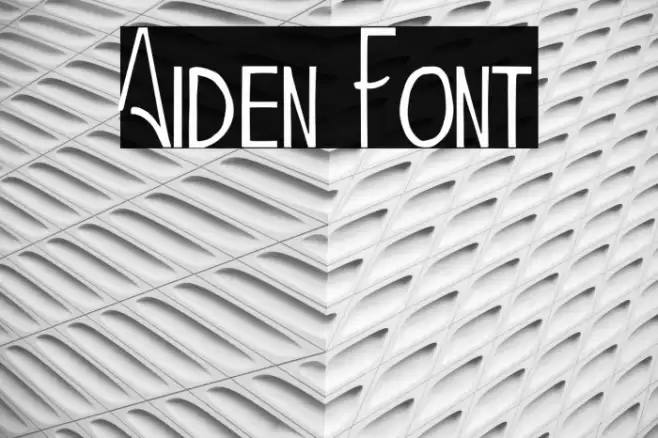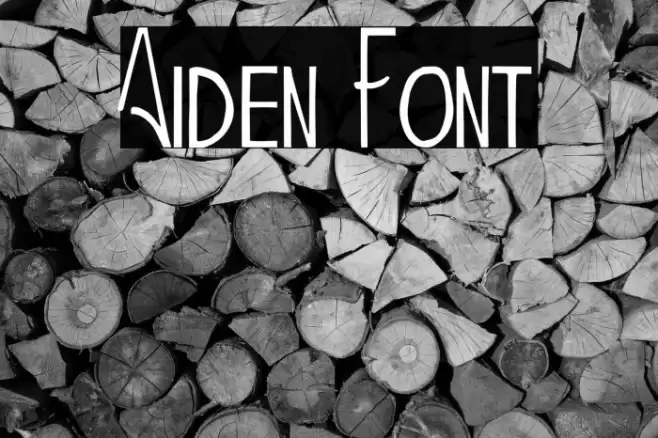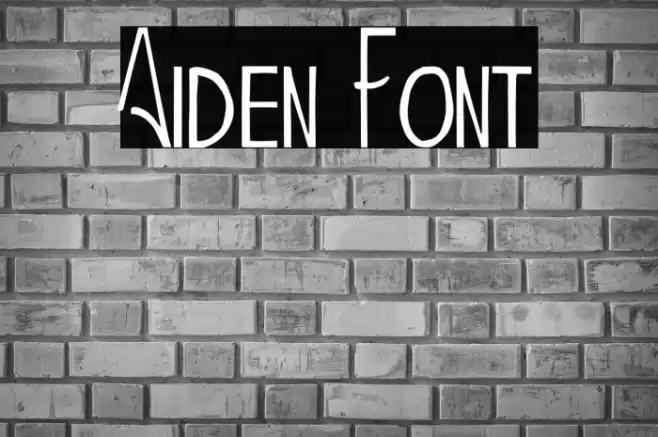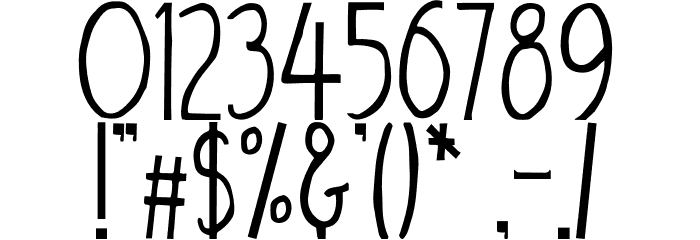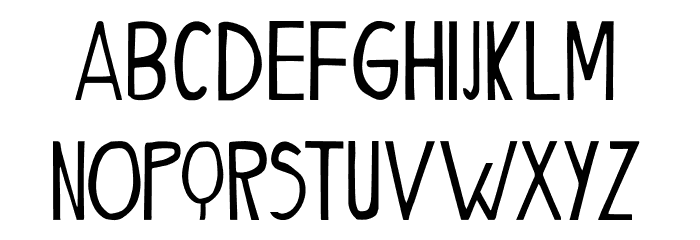
Aiden Font
Aiden Description
This font features a unique blend of geometric and art deco influences, characterized by its tall, narrow letterforms and distinctively sharp angles. The uppercase letters exhibit a strong vertical emphasis, with some characters incorporating unexpected curves and lines that add a touch of elegance and flair. The lowercase letters maintain a consistent style, complementing the uppercase with their own subtle quirks. Numbers are designed with the same attention to detail, ensuring readability while maintaining the font's artistic integrity. Special characters are thoughtfully crafted, fitting seamlessly into the overall design. This font's bold and striking appearance makes it ideal for creative projects that require a touch of sophistication and modernity.
A geometric, art deco-inspired font with tall, narrow letterforms and sharp angles from Uncategorized fonts.
- Proposed Projects: Ideal for branding, posters, album covers, and any project seeking a modern, artistic touch.
- Overall Style: Modern, Art Deco